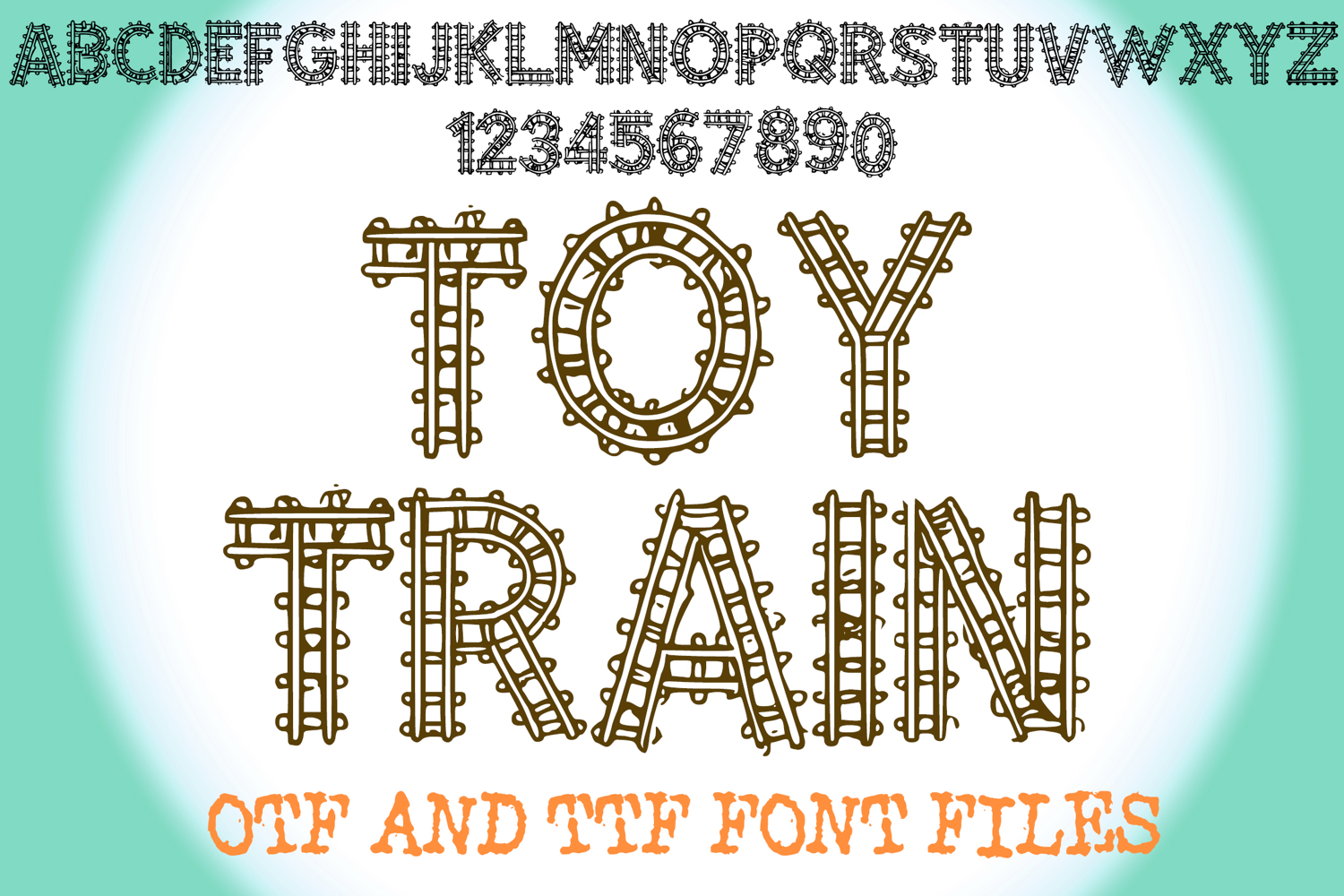
Toy Train Tracks Lettering ABC Text Font Alphabet OTF Type Illustration
A fun cartoon style font where you can create your own words and colour them to your vision!